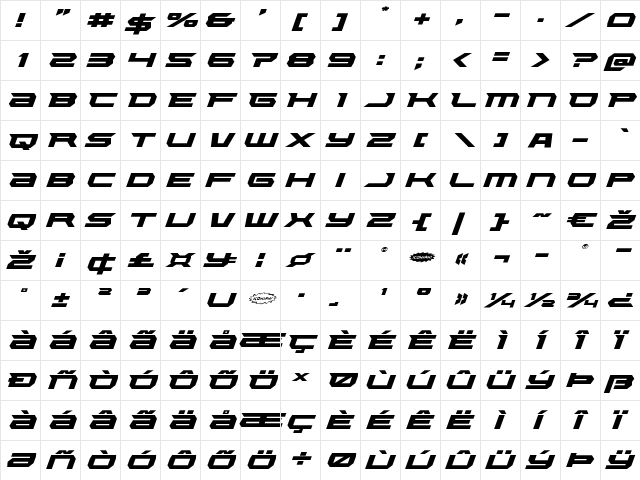
Lethal Force Expanded Italic Expanded Italic
| Designer | Daniel Zadorzny |
Design Context for Lethal Force Expanded Italic Typeface
Lethal Force Expanded Italic has the bold swagger of sports branding: strong, assertive letterforms designed to dominate headlines and jerseys alike. Its italic angle brings a sense of urgency and motion to the letterforms.
A natural choice for gym brands, fantasy sports, jersey lettering, and action-driven headlines.
Pro Tip: Use Lethal Force Expanded Italic in all-caps headlines where its athletic energy can fully express itself. Pair with a solid, simple sans for supporting text.